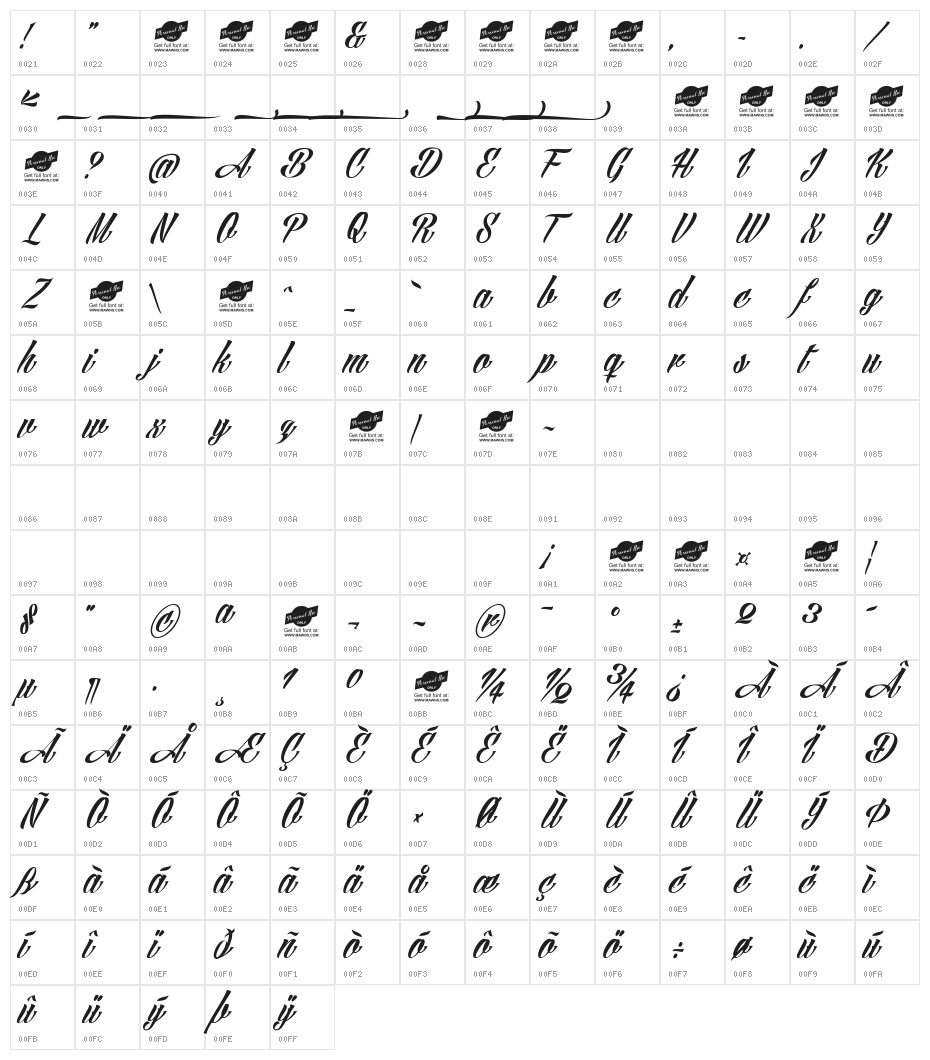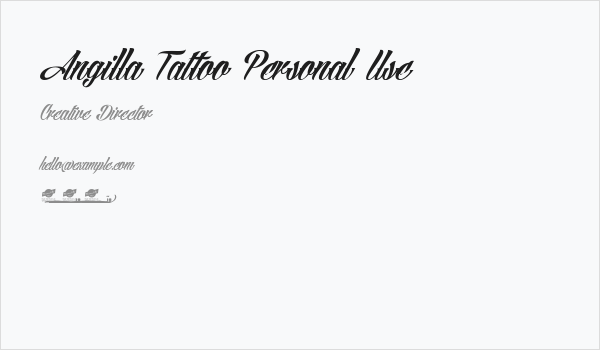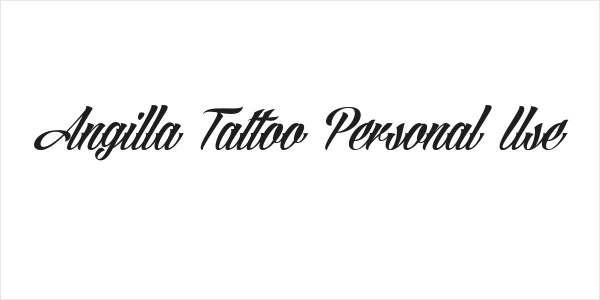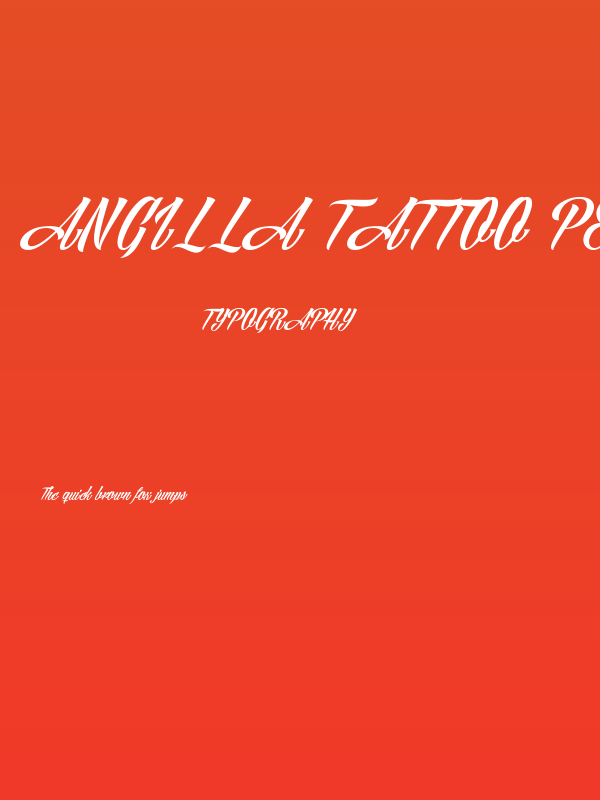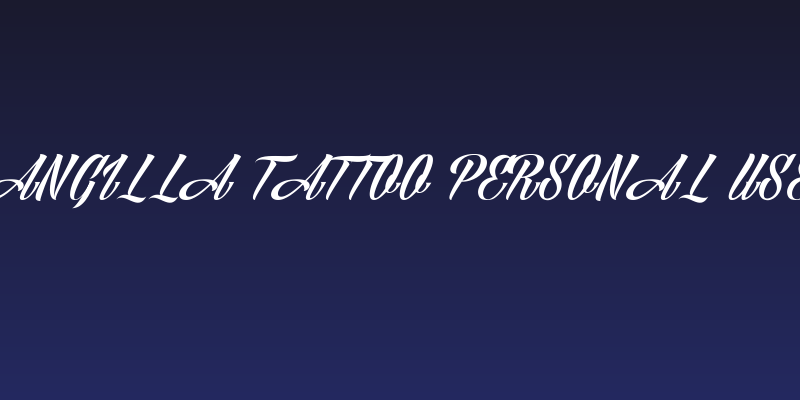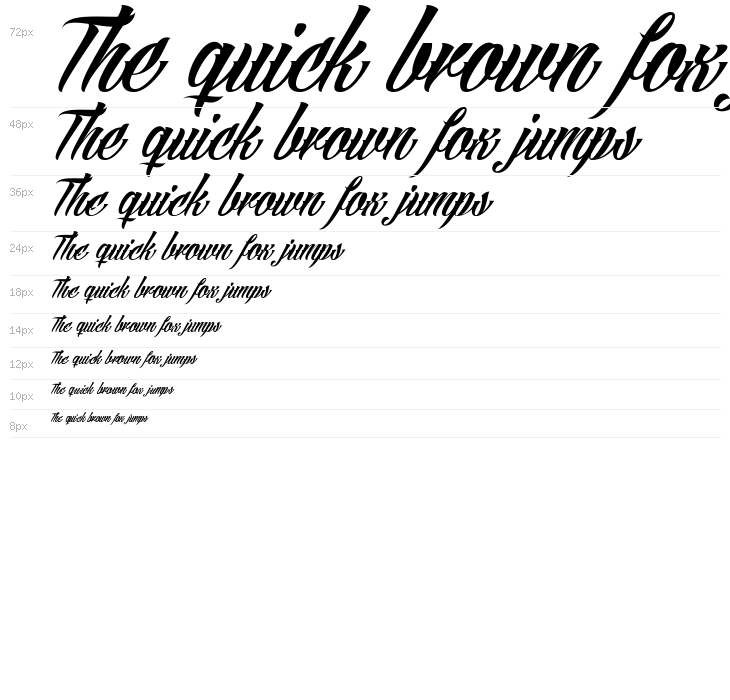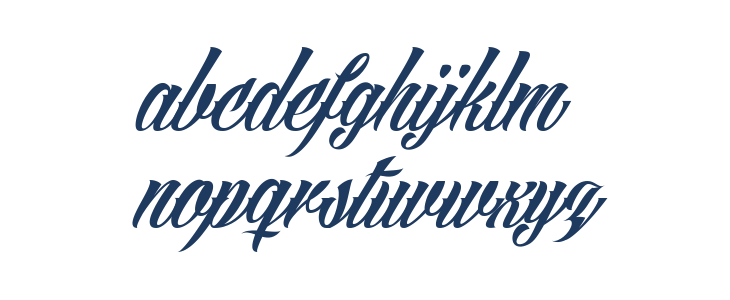
Angilla Tattoo Personal Use Font
Angilla Tattoo Personal Use Description
This font features a bold and flowing script style, reminiscent of traditional tattoo lettering. The characters are elegantly connected, with sweeping curves and a dynamic slant that adds a sense of movement and flair. The uppercase letters are particularly ornate, with exaggerated loops and flourishes, while the lowercase letters maintain a consistent style with slightly less embellishment. The numbers and special characters are designed to match the overall aesthetic, ensuring a cohesive look across all text. This font is ideal for creating eye-catching designs that require a touch of elegance and boldness.
| Proposed Projects | Perfect for tattoo designs, logo creation, branding projects, and decorative headlines. |